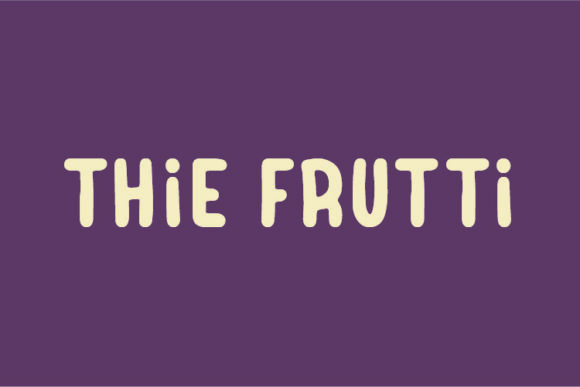
Introducing Thie Frutti Font: Your Key to Unforgettable Instagram Aesthetics!
Embark on a captivating typographic journey with Thie Frutti, a remarkable sans serif font that exudes authenticity and natural flair. This exquisite creation by Hanna Bie isn't just a font; it's an artistic gateway to transforming your Instagram bio into a captivating masterpiece.
With Thie Frutti, every character dances with a life of its own, adding an organic touch to your digital presence. Its natural curves and subtle imperfections evoke a sense of handwritten charm, making your bio stand out from the crowd.
Thrill your followers with eye-catching quotes that leap off the screen, thanks to Thie Frutti's distinct personality. Craft enchanting notes that resonate with heartfelt authenticity. Unleash your creativity and design captivating t-shirts that speak volumes. Create advertisements that captivate and entice, leaving a lasting impression on your audience.
But Thie Frutti's magic extends far beyond Instagram. Its versatility shines in a myriad of creative endeavors. Design stunning logos that embody your brand's unique identity. Craft elegant wedding invitations that exude timeless charm. Create social media graphics that resonate with your audience, leaving an indelible mark on their minds.
With Thie Frutti, the possibilities are endless. Its user-friendly nature makes it accessible to both seasoned designers and those just starting their creative journey. Let Thie Frutti be your muse, your creative spark, and your gateway to crafting a digital presence that captivates and inspires.